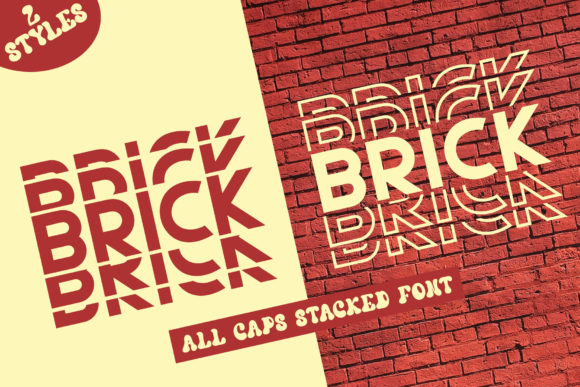
Journey into the world of Brick Font, a captivating display font family that exudes boldness and coolness. Crafted with precision by airotype, Brick Font is the ultimate choice for designers seeking to create projects that leave an unforgettable impact. Its distinct and stylish characters make it an ideal selection for a wide range of applications, from eye-catching shirt designs and logos to unique stickers, sublimation projects, and signage that demands attention.
Unleash your creativity with Brick Font, the perfect companion for your diverse design endeavors. Its versatility knows no bounds, allowing you to effortlessly elevate your projects to new heights. Whether you're a seasoned designer or just starting your creative journey, Brick Font empowers you to make a statement with every design.
Immerse yourself in the world of Brick Font and discover the endless possibilities it holds. Its bold and chunky letters command attention, while its clean and legible structure ensures that your message is conveyed with clarity and impact. Let Brick Font be your creative partner, helping you craft designs that resonate with your audience and leave a lasting impression.